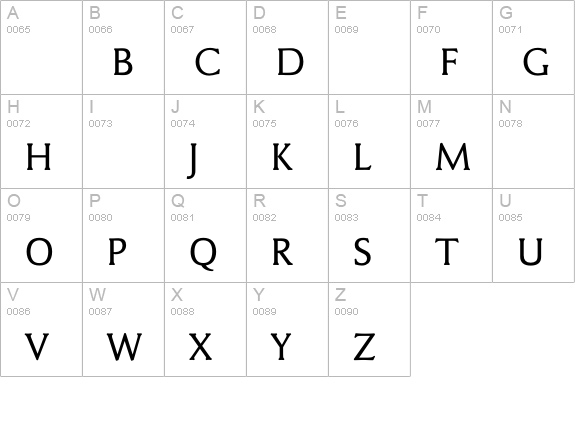
SainsburyMedium Font Details
Introducing SainsburyMedium, a font that combines elegance and versatility into one stunning typeface. With its timeless appeal and perfectly balanced proportions, SainsburyMedium effortlessly captures attention and adds a touch of sophistication to any design project. Crafted with utmost precision, each letter of SainsburyMedium showcases a harmonious blend of classic and modern elements. Its clean, crisp lines exude clarity and readability, making it an ideal choice for both print and digital mediums. What sets SainsburyMedium apart is its ability to adapt to various design contexts. Whether you're designing a logo, creating a captivating headline, or composing an engaging body of text, this font seamlessly integrates into any layout, providing a cohesive and visually appealing result. But what truly makes SainsburyMedium exceptional is its accessibility. We believe that great design should be available to all, which is why this extraordinary font is freely available to download at FontsMarket.com. This means that you can effortlessly enhance your projects without any limitations or barriers. So, why settle for ordinary when you can elevate your designs with SainsburyMedium? Unlock a world of creativity and make a lasting impression with this remarkable font that combines timeless elegance with unparalleled accessibility. Download SainsburyMedium today and experience the power of beautiful typography at your fingertips.